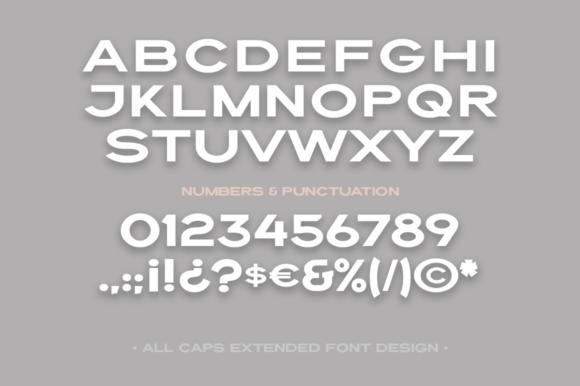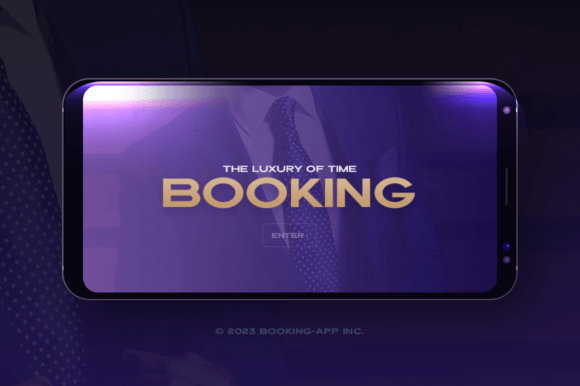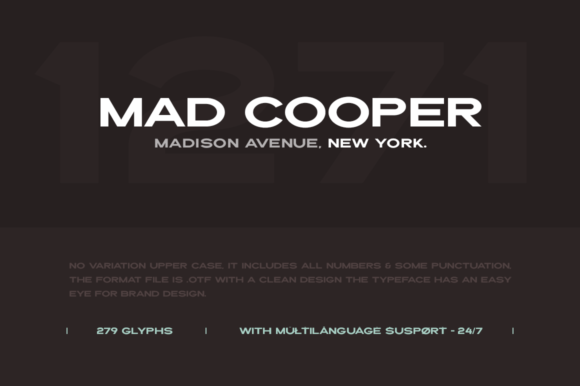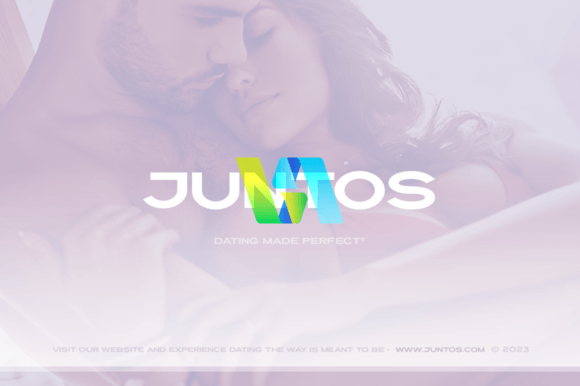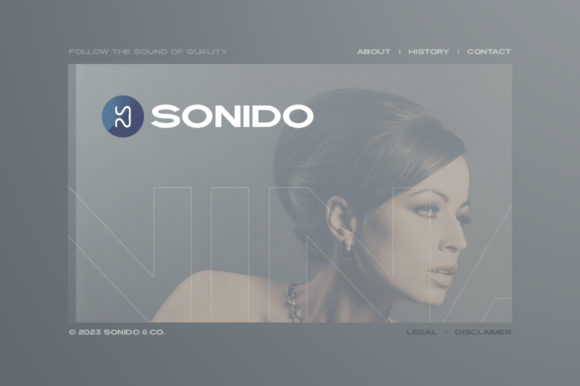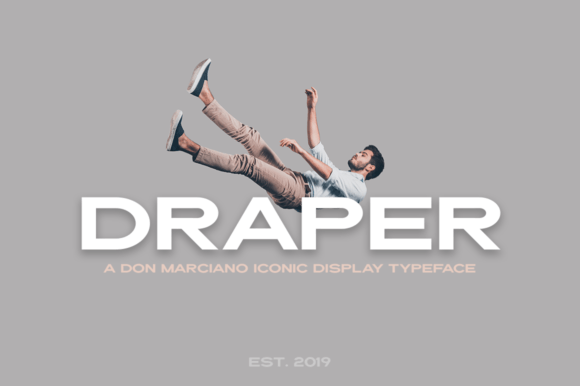
The Draper Font: A Timeless Classic Inspired by Mid-Century New York Advertising
In the world of typography, few fonts have managed to capture the essence of a bygone era as effectively as the Draper font. Named after the iconic fictional advertising agency from the popular TV series “Mad Men,” this mid-20th century style font has become synonymous with the sleek, sophisticated aesthetic of New York’s advertising world during the 1960s.
A Font Born from Television’s Golden Age
The Draper font owes its inspiration to the critically acclaimed television series “Mad Men,” which aired from 2007 to 2015. The show, set in the 1960s, revolves around the lives of advertising executives on Madison Avenue in New York City. The series’ attention to detail, particularly in its visual elements, helped to spark a renewed interest in the design and typography of the era.
The fictional advertising agency, Sterling Cooper Draper Pryce, was at the heart of the show. The agency’s sleek, modernist aesthetic, characterized by clean lines, bold typography, and a predominantly monochromatic color scheme, became a visual hallmark of the series.
Design Characteristics of the Draper Font
The Draper font is designed to evoke the distinctive look and feel of mid-century New York advertising. Its key characteristics include:
• Clean Lines: The font features crisp, clean lines that convey a sense of sophistication and elegance.
• Bold and Confident: The Draper font exudes a bold, confident style that was characteristic of the era’s advertising.
• Sleek and Modern: The font’s sleek, modernist aesthetic makes it perfect for designs that require a touch of nostalgia with a contemporary twist.
Uses of the Draper Font
The Draper font is incredibly versatile and can be used in a variety of applications, including:
• Logos: The font’s bold, confident style makes it ideal for logos that require a strong, attention-grabbing presence.
• Promotional Materials: From brochures to flyers, the Draper font is perfect for creating promotional materials that require a touch of sophistication.
• Invitations and Greeting Cards: The font’s elegant, refined aesthetic makes it suitable for formal invitations and greeting cards.
• Posters: The Draper font’s bold, eye-catching style makes it perfect for creating striking posters that demand attention.
Why Designers and Crafters Love the Draper Font
The Draper font has become a favorite among designers and crafters for several reasons:
• Unique Aesthetic: The font’s distinctive mid-century modern aesthetic sets it apart from more contemporary fonts.
• Versatility: The Draper font can be used in a wide range of applications, from logos and promotional materials to invitations and posters.
• Ease of Use: The font’s clean lines and simple design make it easy to use and pair with other fonts.
The Draper font is a timeless classic that continues to inspire designers and crafters around the world. Its unique blend of mid-century modern style and bold, confident aesthetic makes it perfect for a wide range of applications. Whether you’re looking to create a logo, promotional materials, or simply want to add a touch of nostalgia to your designs, the Draper font is an excellent choice.